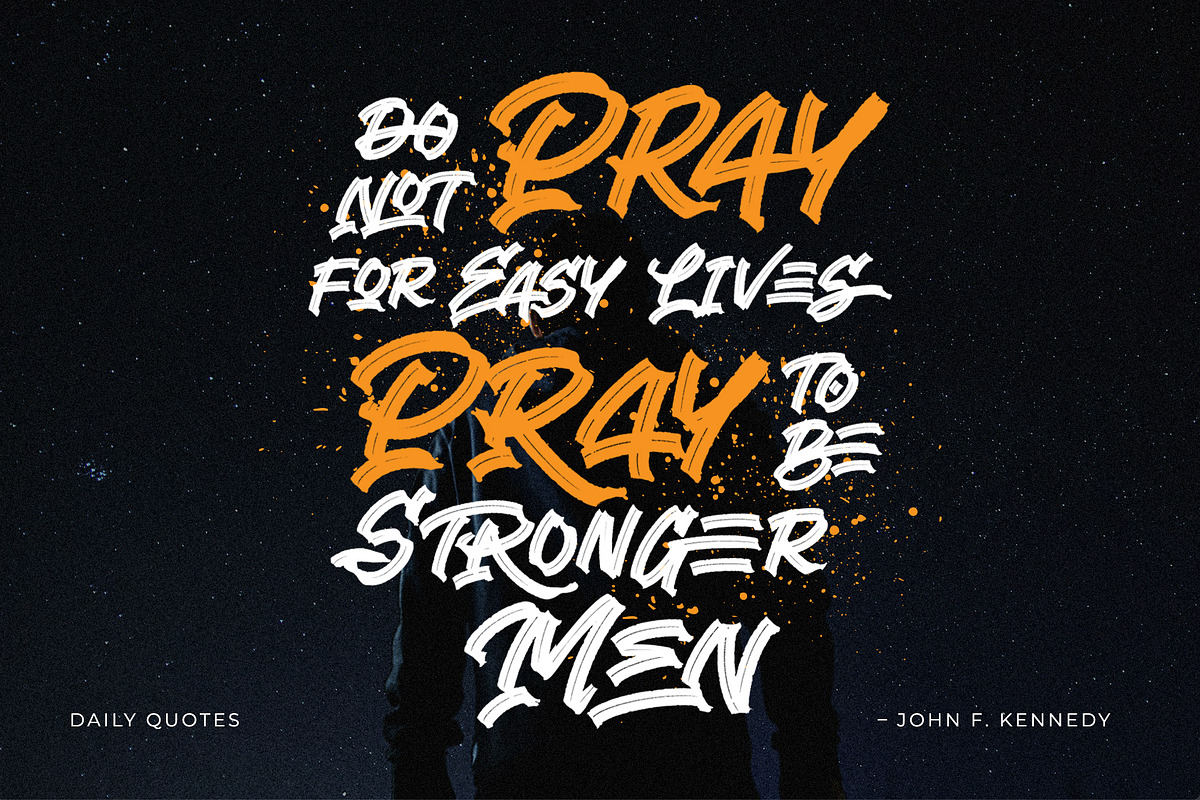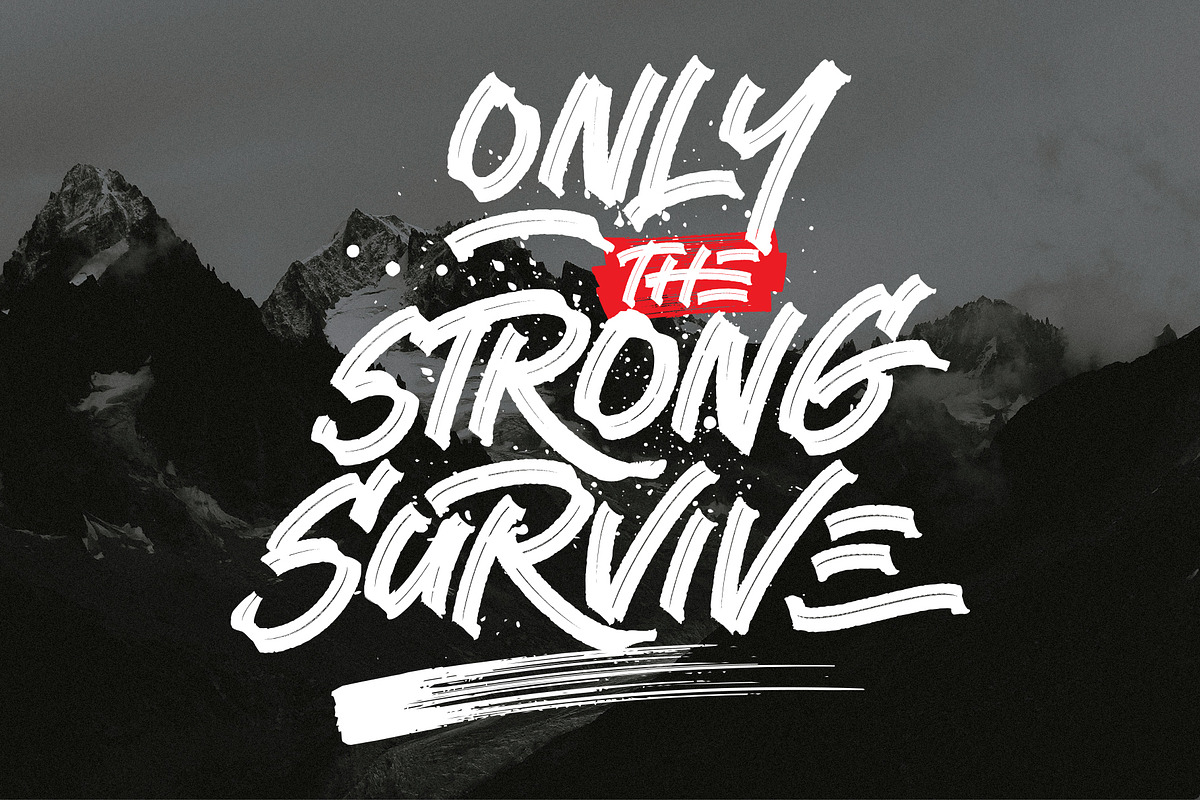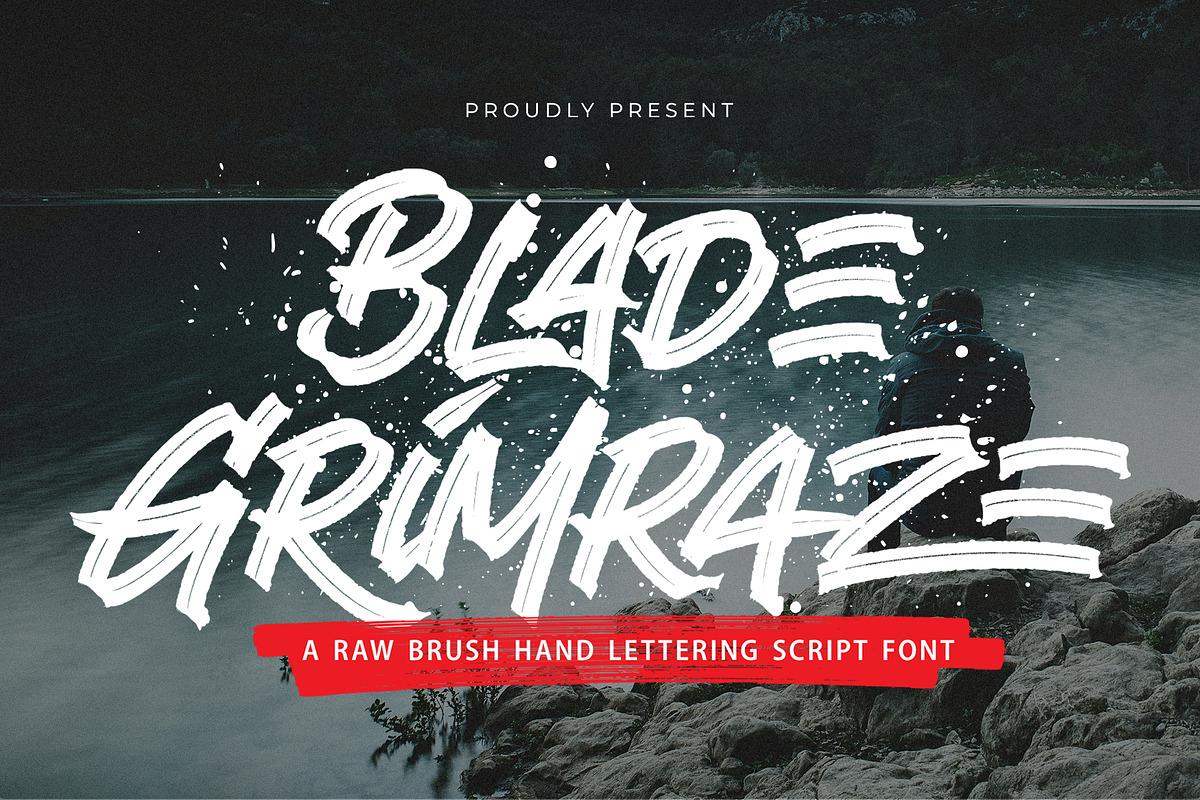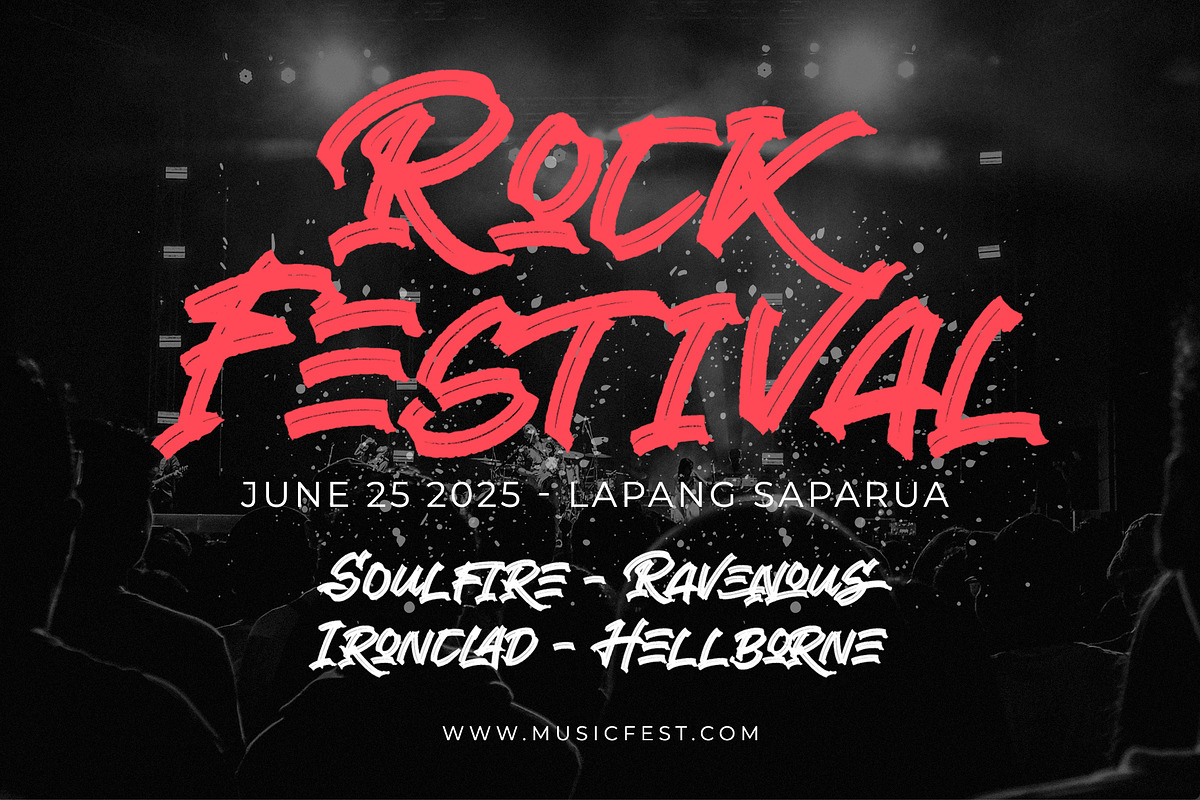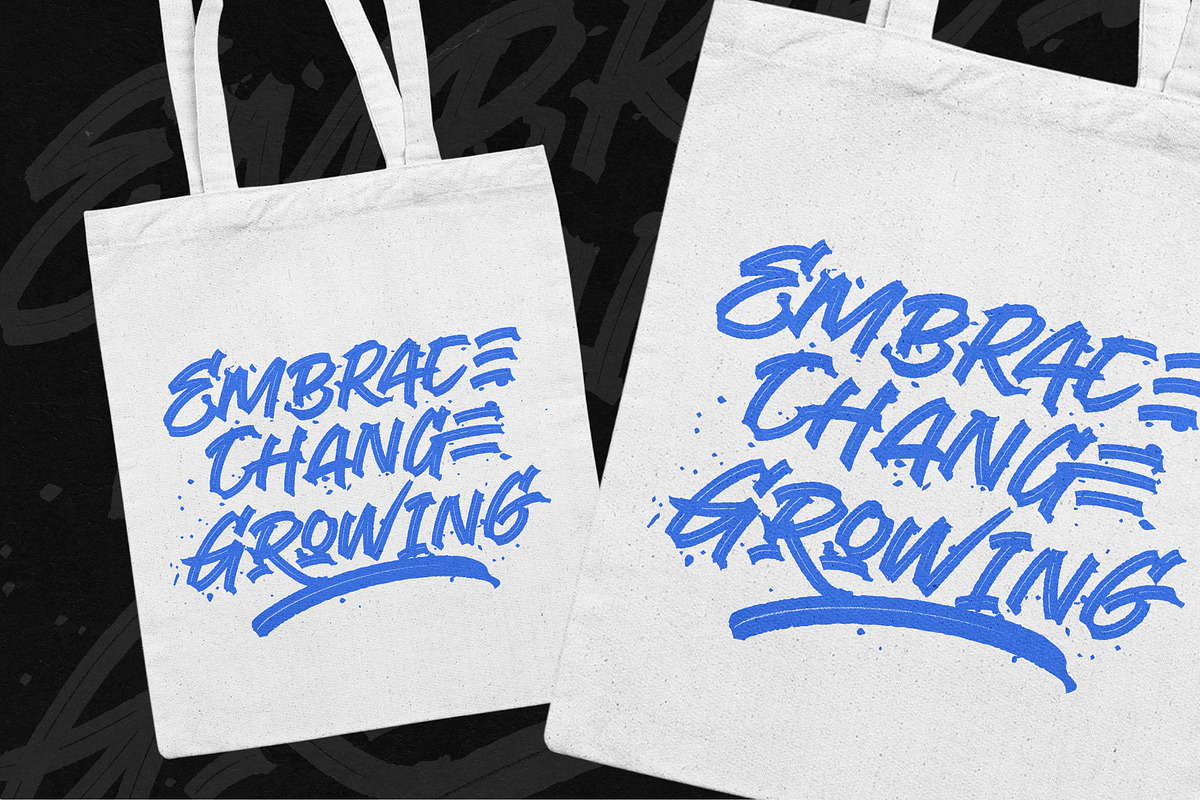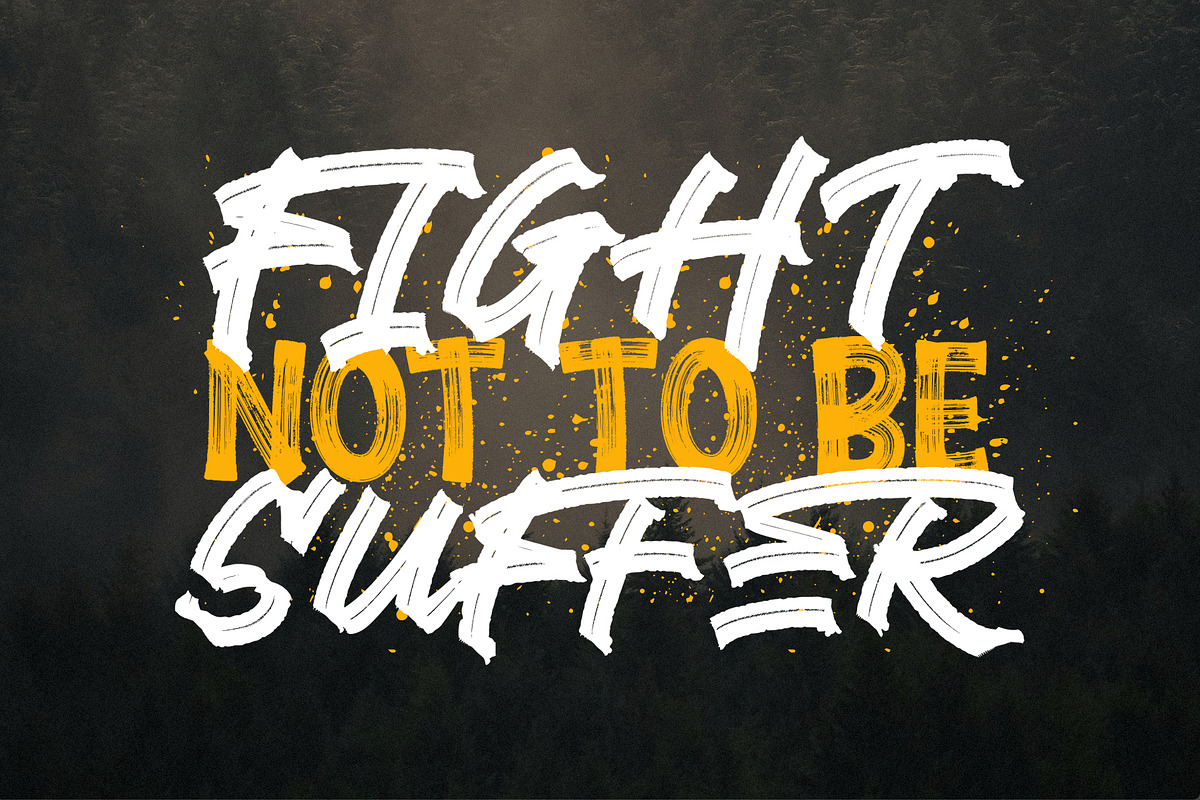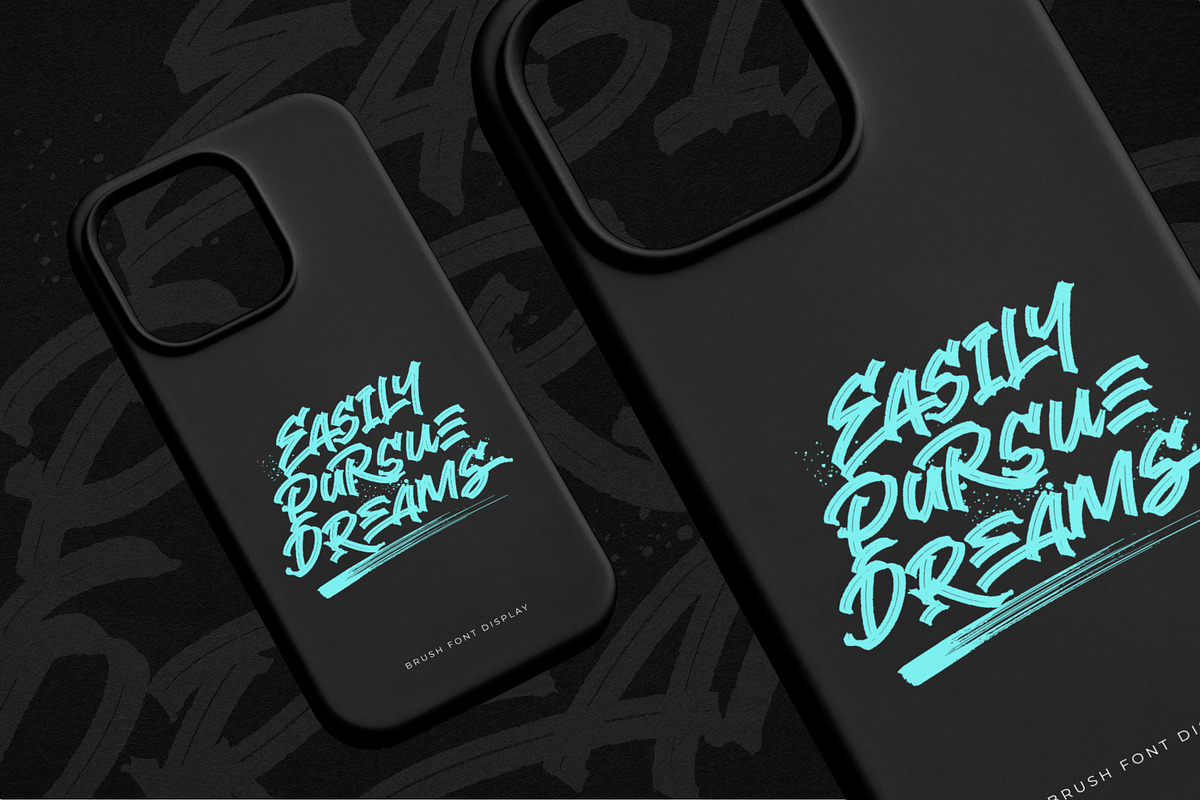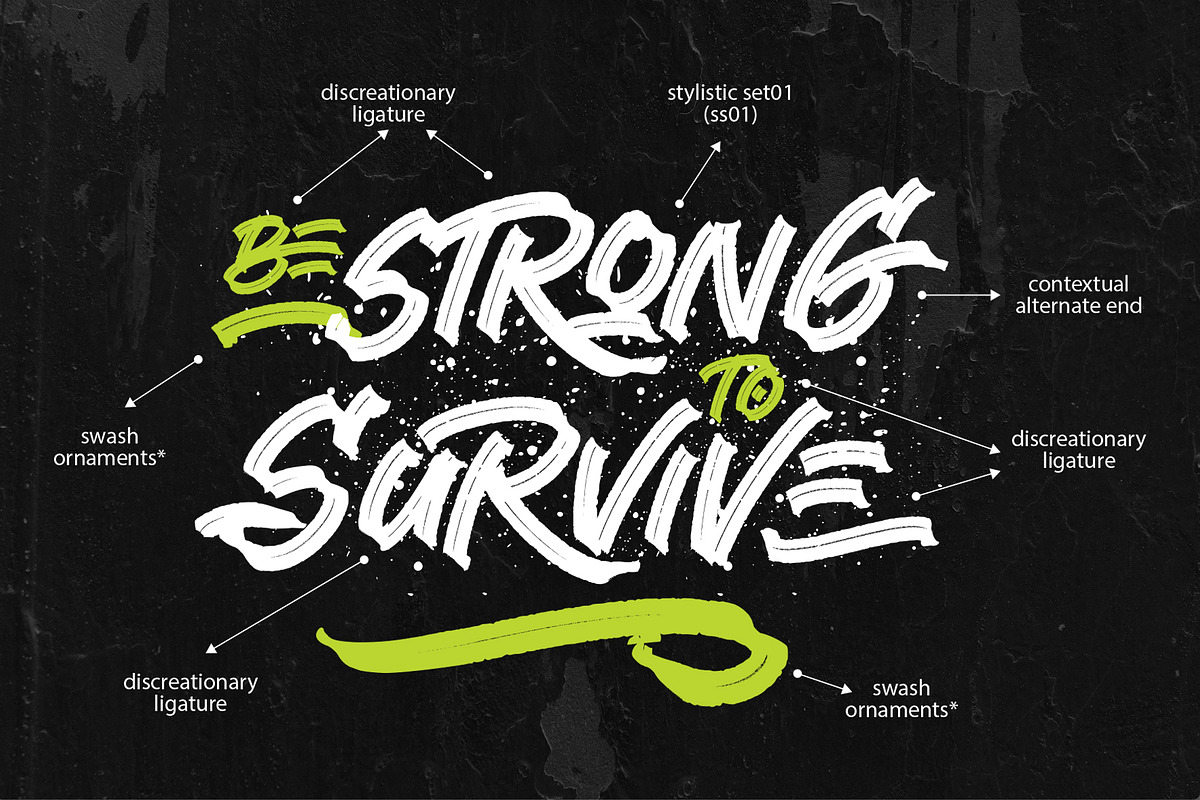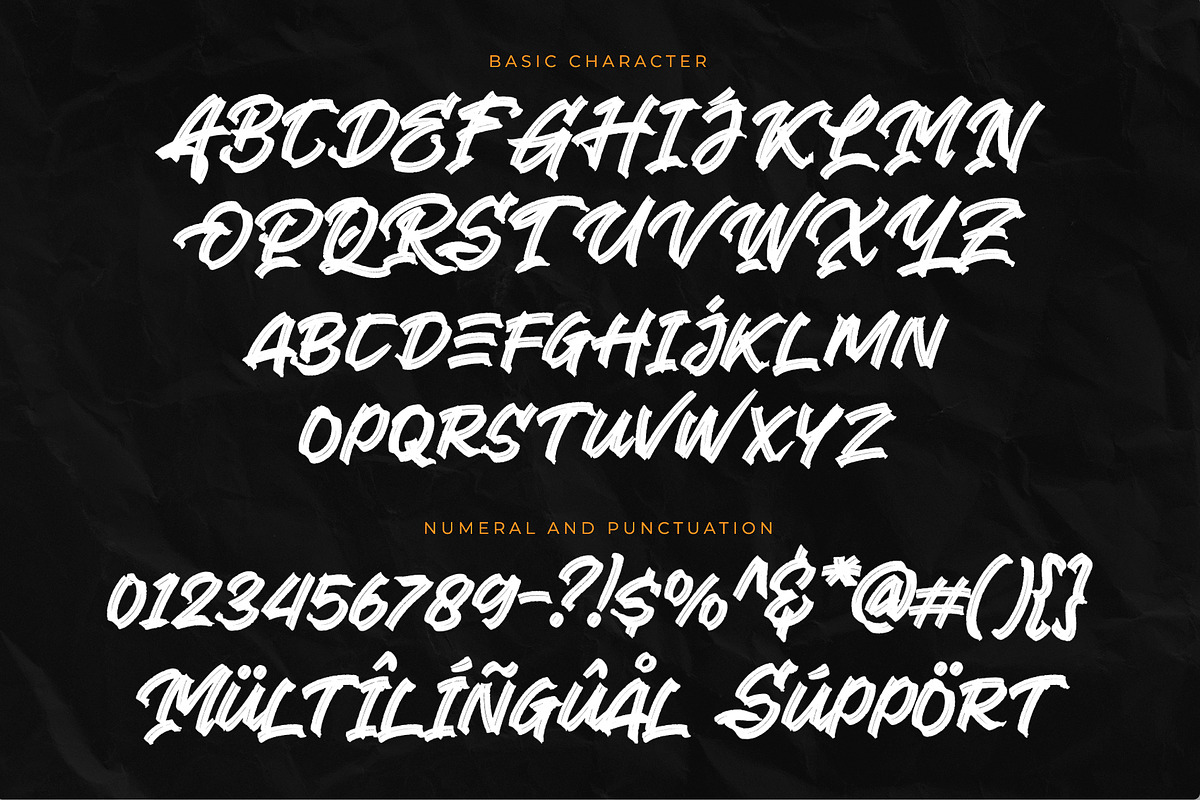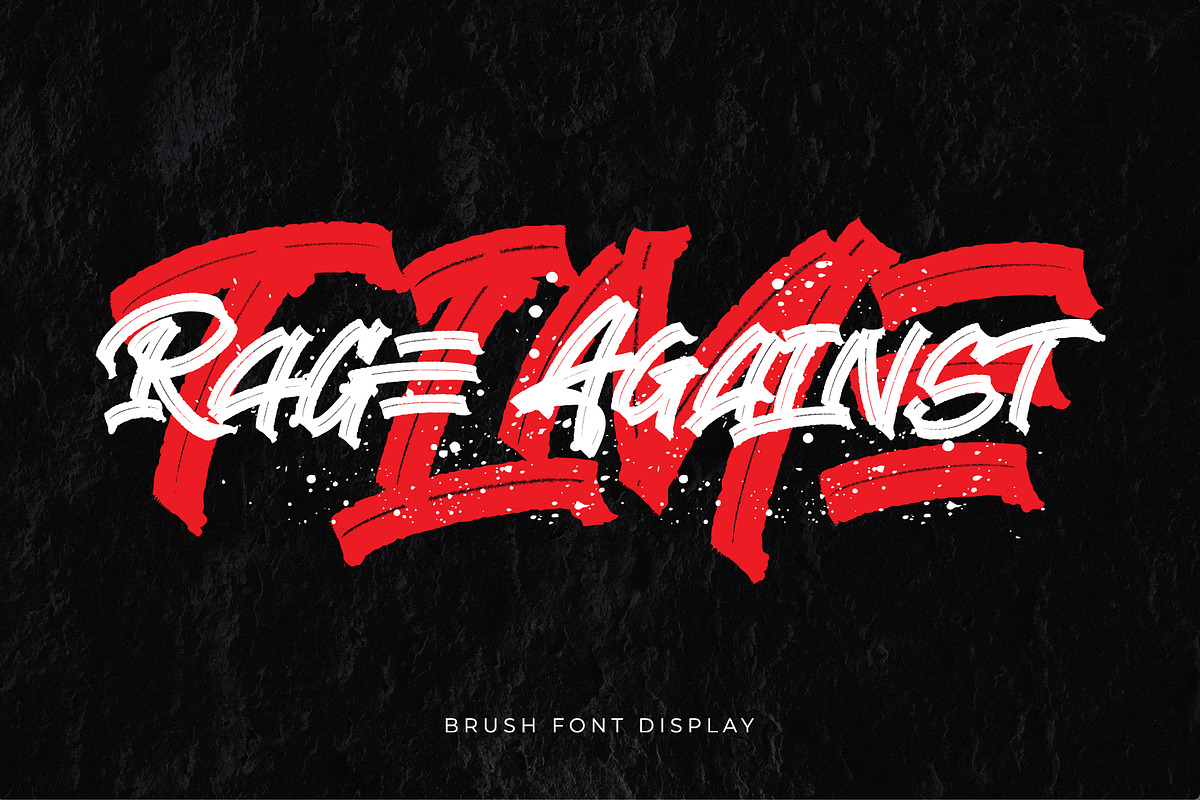
Grimraze - Brush Hand Lettering
Grimraze is a raw brush hand lettering typeface built with aggressive strokes, organic textures, and powerful handwritten energy. Its rough edges, irregular shapes, and fast brush movement create typography that feels bold, rebellious, and authentically handcrafted.
Inspired by action posters, extreme sports graphics, street culture, music artwork, outdoor adventures, and expressive hand lettering, Grimraze is designed for projects that need immediate visual impact and a strong sense of movement.
Overview
Grimraze combines expressive brush lettering with a bold display structure. Its uppercase and lowercase characters feature natural stroke variation, dry-brush textures, sharp terminals, and irregular edges that make each composition feel hand-painted rather than digitally constructed.
The font works especially well for large headlines, logos, motivational statements, album artwork, sports graphics, merchandise, and promotional campaigns.
Pair Grimraze with dark photography, distressed textures, paint splashes, bold accent colors, grain effects, and condensed sans serif typography for a strong contemporary composition.
Grimraze Brush Hand Lettering Font
Uppercase characters A–Z
Lowercase characters a–z
Numerals 0–9
Standard symbols and punctuation
Multilingual accented characters
Hand-brushed textured letterforms
Raw brush hand lettering style
Bold and aggressive handwritten character
Authentic dry-brush texture
Natural stroke variation
Rough and irregular edges
Dynamic uppercase characters
Expressive lowercase letterforms
Uppercase and lowercase alphabet
Complete numerals
Standard symbols and punctuation
High-impact display typography
Ideal for logos, headlines, titles, and short phrases
Works beautifully with sports, music, outdoor, and urban visuals
Easy to pair with condensed sans serif and grotesque fonts
Stylistic Alternates: no dedicated alternate character set is clearly confirmed in the supplied preview
18 Ligature Pairs: st, br, cr, ct, fr, ist, op, or, ox, th, Tr, tt, wn, ff, fi, fl, ffi, ft — only list these if every pair is included and tested in the final font file
Multilingual Support: Western European characters with diacritics (À, Á, Â, Ç, É, Ñ, Ø, Ü, etc.)
Ideal For / Use Cases
Sports branding
Extreme sports graphics
Outdoor branding
Adventure campaigns
Music posters
Album cover artwork
Band logos
Streetwear branding
Skateboard graphics
Surf branding
Automotive graphics
Motorcycle branding
Logo and wordmark design
Poster typography
Motivational quotes
Editorial headlines
Product packaging
Beverage branding
YouTube thumbnails
Sticker designs
Merchandise graphics
T-shirt designs
Event promotions
Bold visual identities
Use Grimraze at medium or large sizes to preserve its rough brush texture and energetic stroke details. It performs best for logos, poster headlines, campaign titles, quotes, product names, and short phrases rather than long body text.
Pair the font with a clean condensed sans serif for dates, captions, credits, and supporting information. Black, white, charcoal, red, yellow, or other high-contrast colors can strengthen its aggressive visual character.
Best used at medium and large display sizes
Small sizes may reduce the visibility of brush textures
Rough letter edges are intentional design characteristics